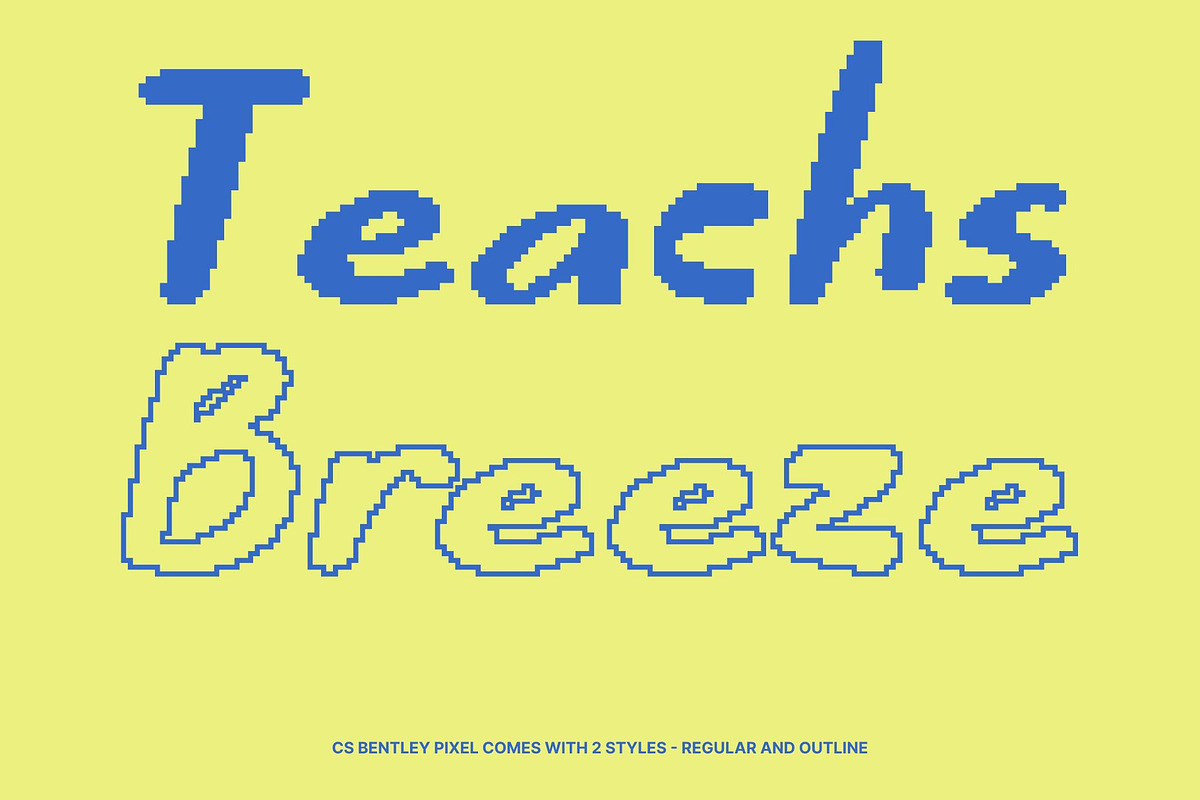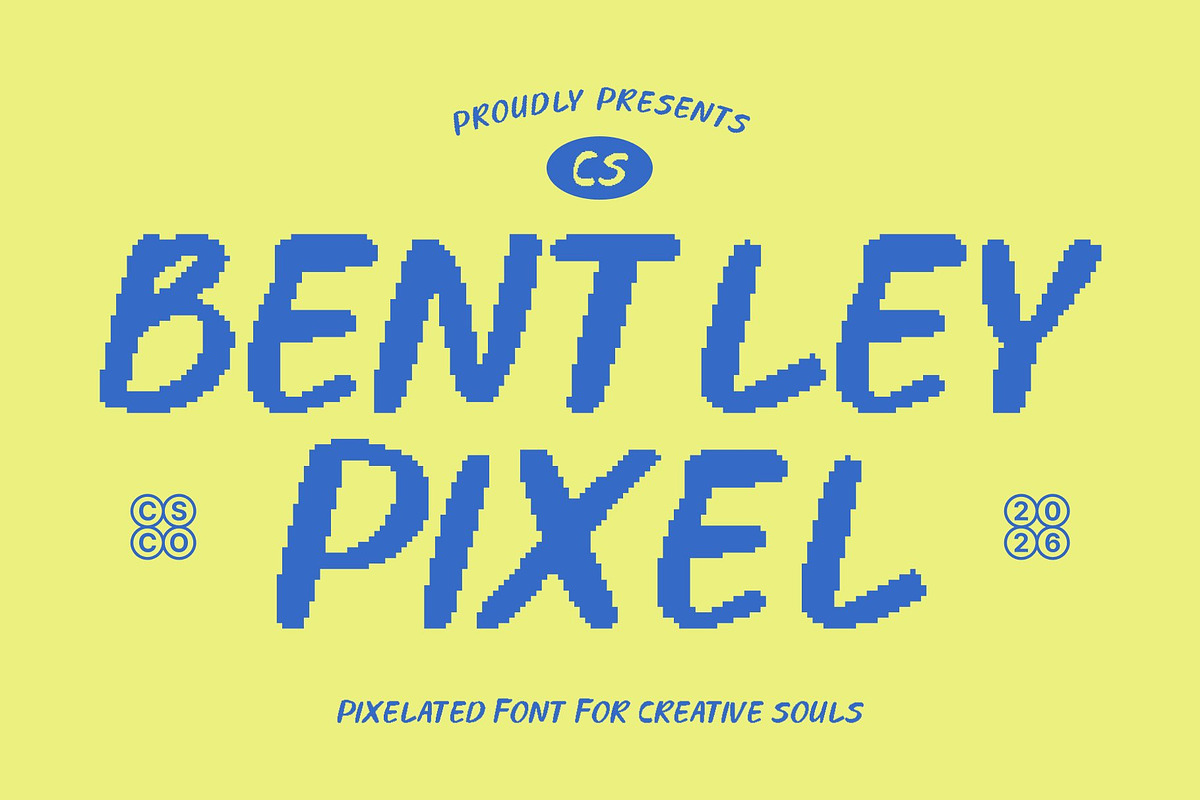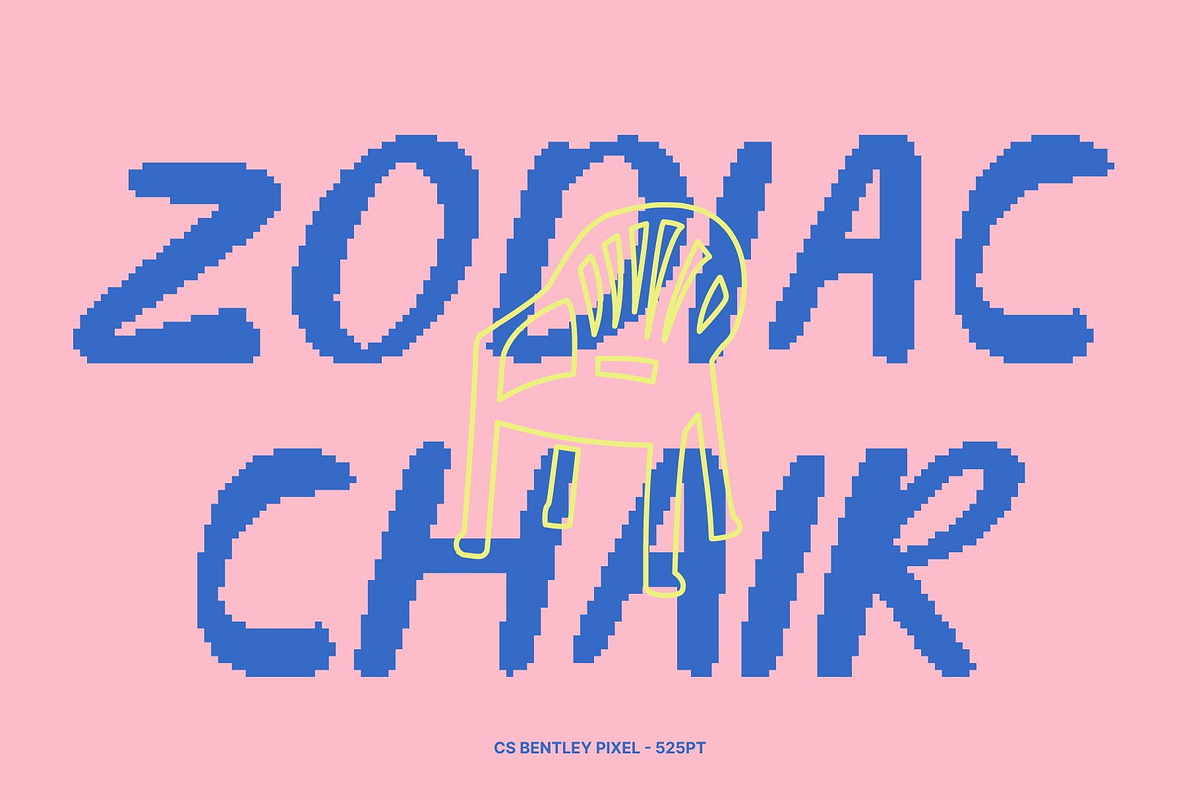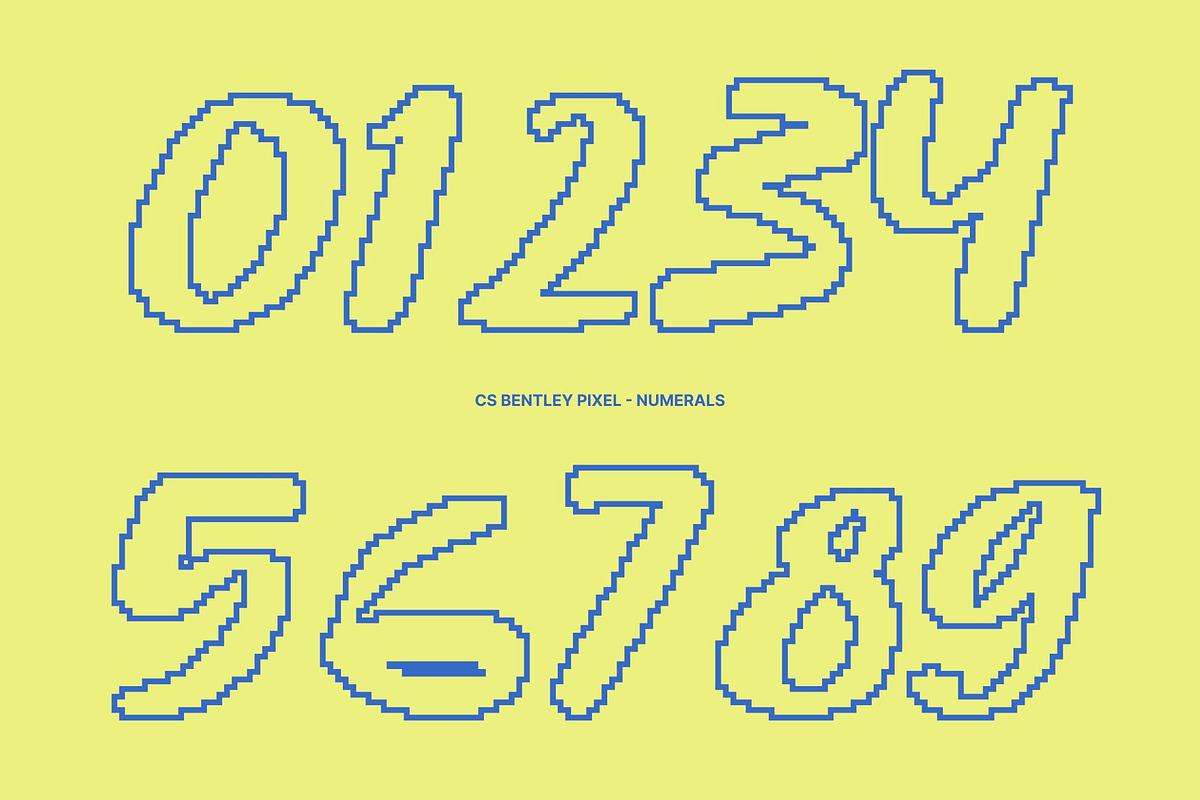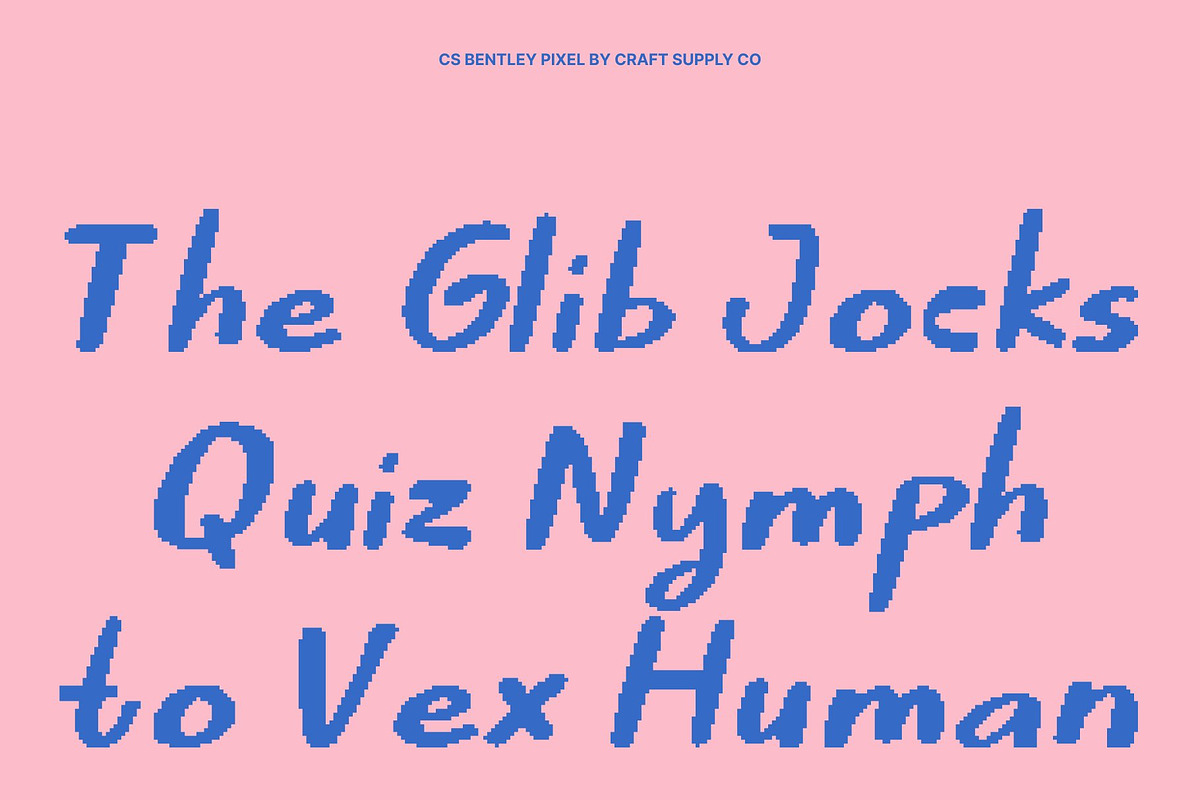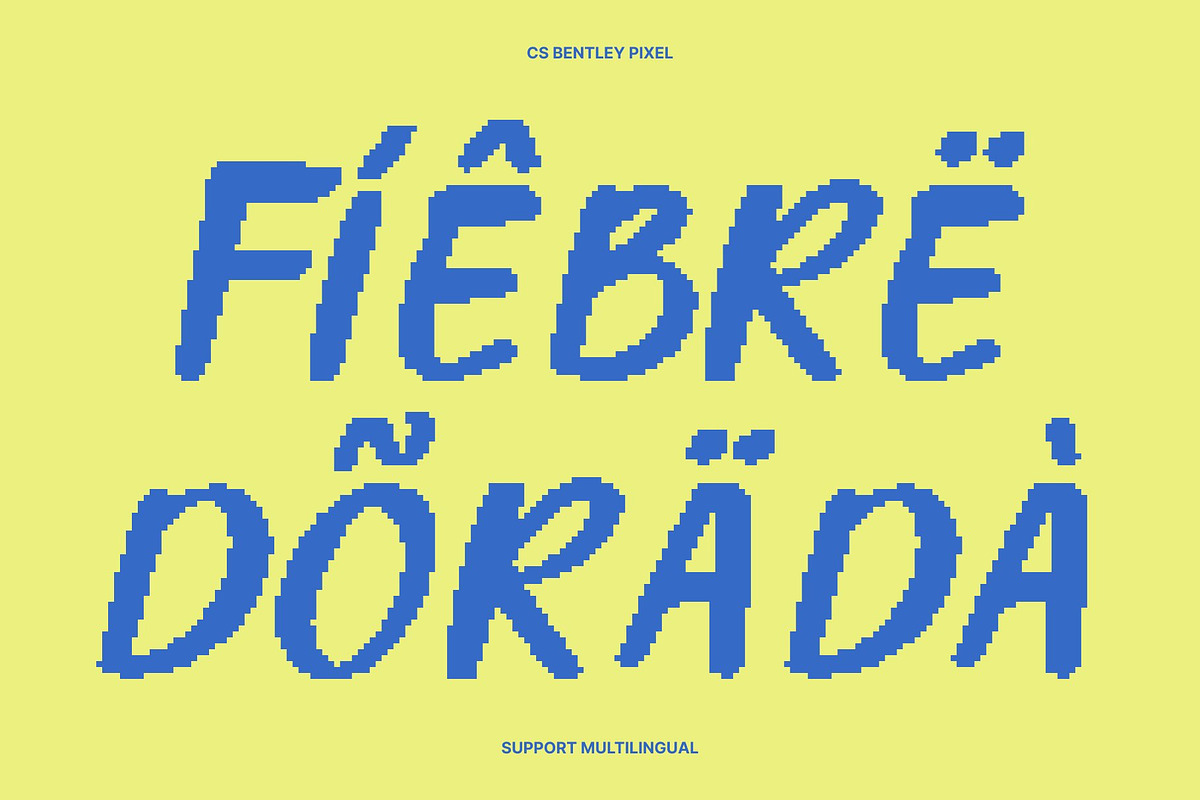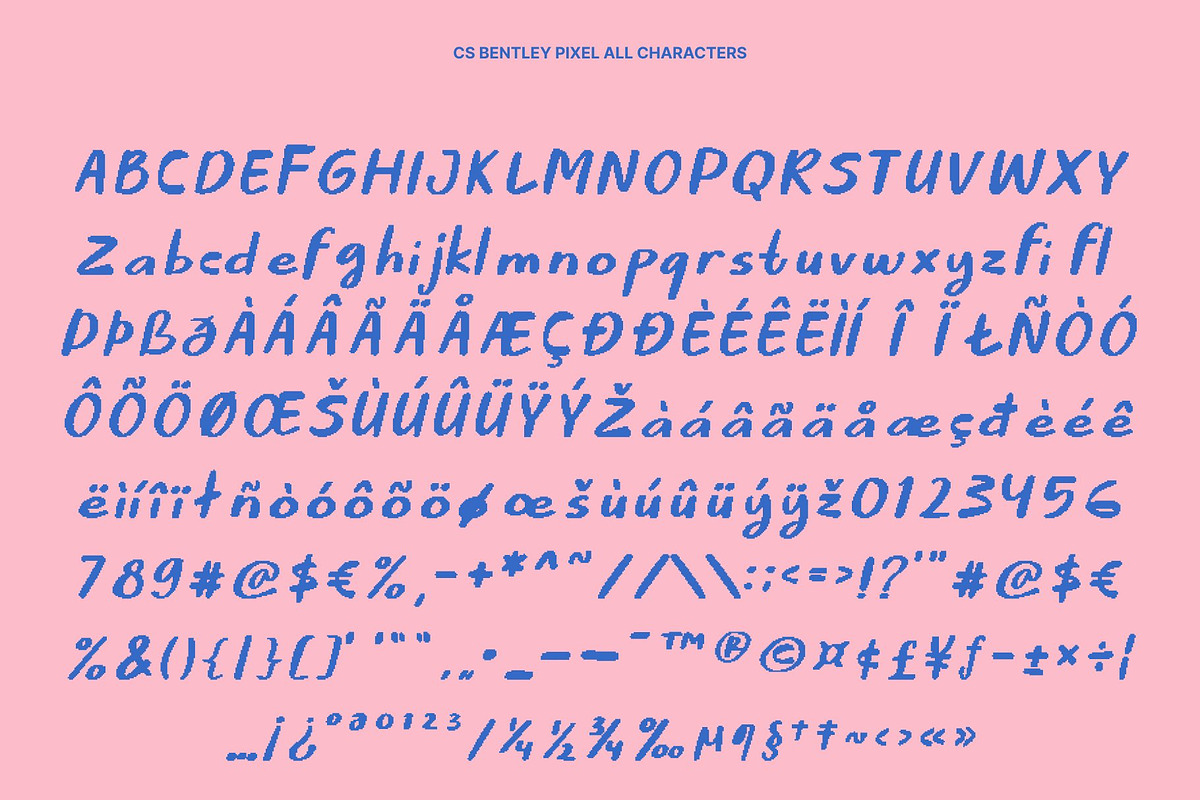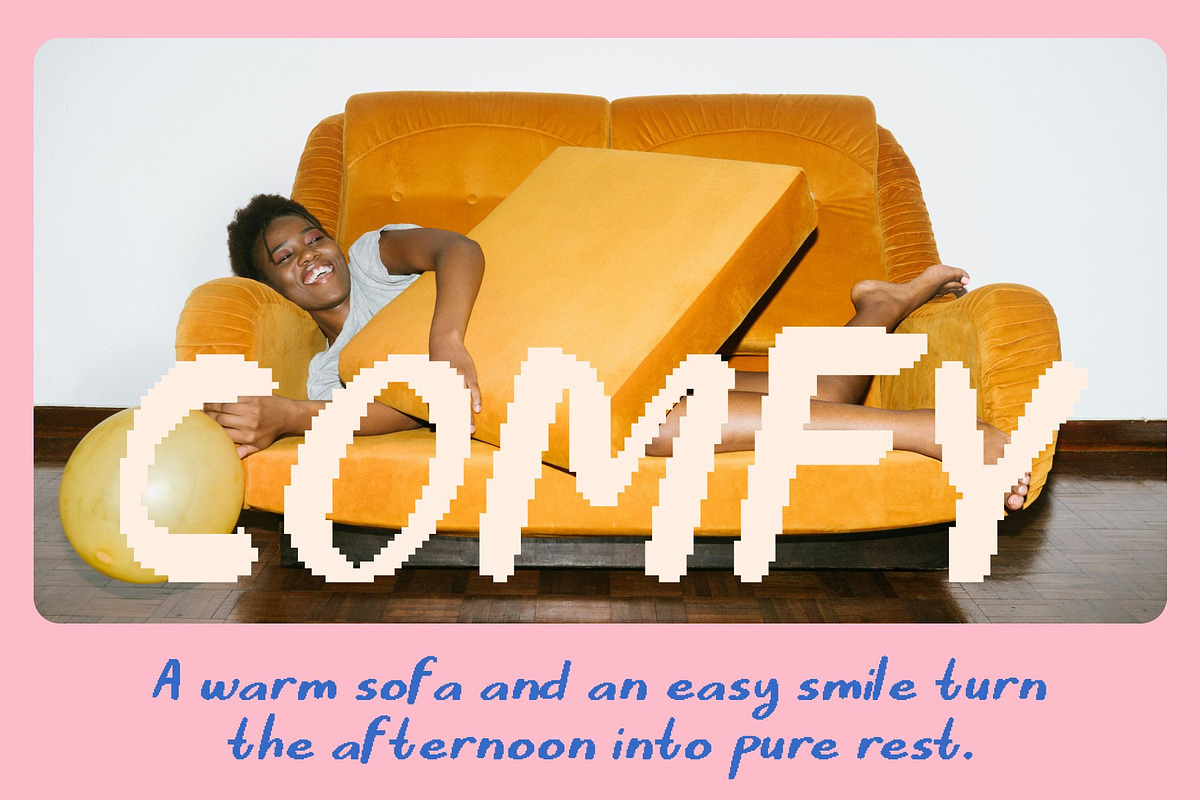
CS Bentley Pixel
CS Bentley Pixel – Soft Handwritten Font with Warm Retro Digital Expression
Gentle Handwritten Feel with Pixel-Based Charm This is a soft and expressive handwritten font that captures the warmth of natural pen strokes, reinterpreted through a pixel-style structure. Each letter flows with an organic rhythm while being shaped by subtle pixel detailing, creating a unique blend of human authenticity and retro digital character. The result feels personal, heartfelt, and nostalgic like handwritten notes translated into an old-school 8-bit world.
Warm, Authentic Texture with Retro Personality The gentle imperfections of the handwriting are preserved and enhanced by the pixel construction, giving the font a cozy, handcrafted texture with a vintage digital feel. This combination adds sincerity and friendliness, while the pixel style evokes classic computer screens, early games, and retro digital graphics.
Perfect for Personal Branding and Creative Digital Quotes This font works beautifully for personal branding, signature-style logos, lifestyle projects, and social media designs that aim to feel close and expressive. Its handwritten warmth paired with pixel aesthetics makes it ideal for motivational quotes, retro-themed captions, indie branding, and creative storytelling that blends emotion with nostalgia.
Ideal for Casual Invitations and Retro-Inspired Designs From casual invitations and greeting cards to handmade-style layouts and pixel-art projects, this font brings soft elegance with a digital twist. This font is perfect for designs that want to feel personal, relaxed, and emotionally engaging while celebrating the charm of retro 8-bit typography.